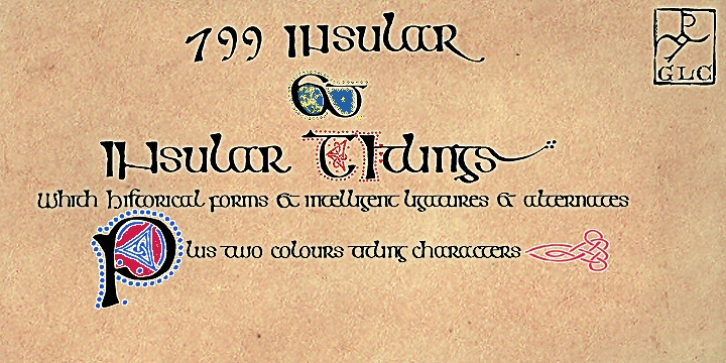
799 Insular is a historical font family. This typeface has two styles and was published by GLC Foundry.
This font was inspired from the so called “Insular Style” Latin script used in Celtic monasteries (Ireland, Scotland -with the well known “Book of Kells”- and England) from the late 6th to 9th, before the Carolingian “Caroline” (look at our “825 Karolus”). It was a regular script, rounded, written slowly, used mainly for specialy meticulous books, with a very little few of ligatures. The rarely used capitals was consisting in enlarged lowercases, but, on the other hand, there was numerous historiated initials.
The Titling file proposed allow to create two colours decorated letters, using OTF Titling feature or copy and paste technic.
We have created the font as to be adapted for contemporary users,  making difference between U and V, I and J, which has not any relevance for ancient Latin scribes, and naturally with Thorn, Oslash, Lslash, K,W… The specific Celtic “y” is added as an historical alternate.